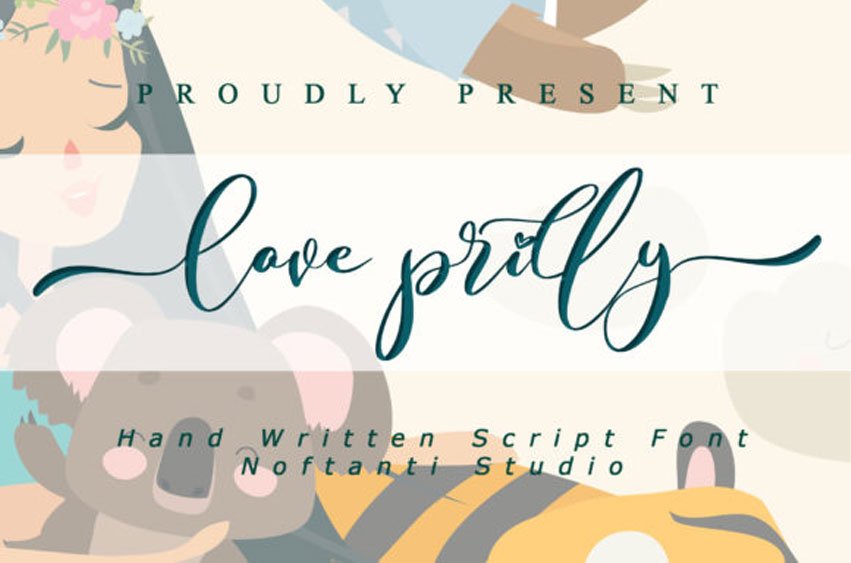
Love Prilly Font is a refined, all round, and cursive handwritten font. It has beautiful and well-balanced characters and as a result, it matches a wide pool of designs.